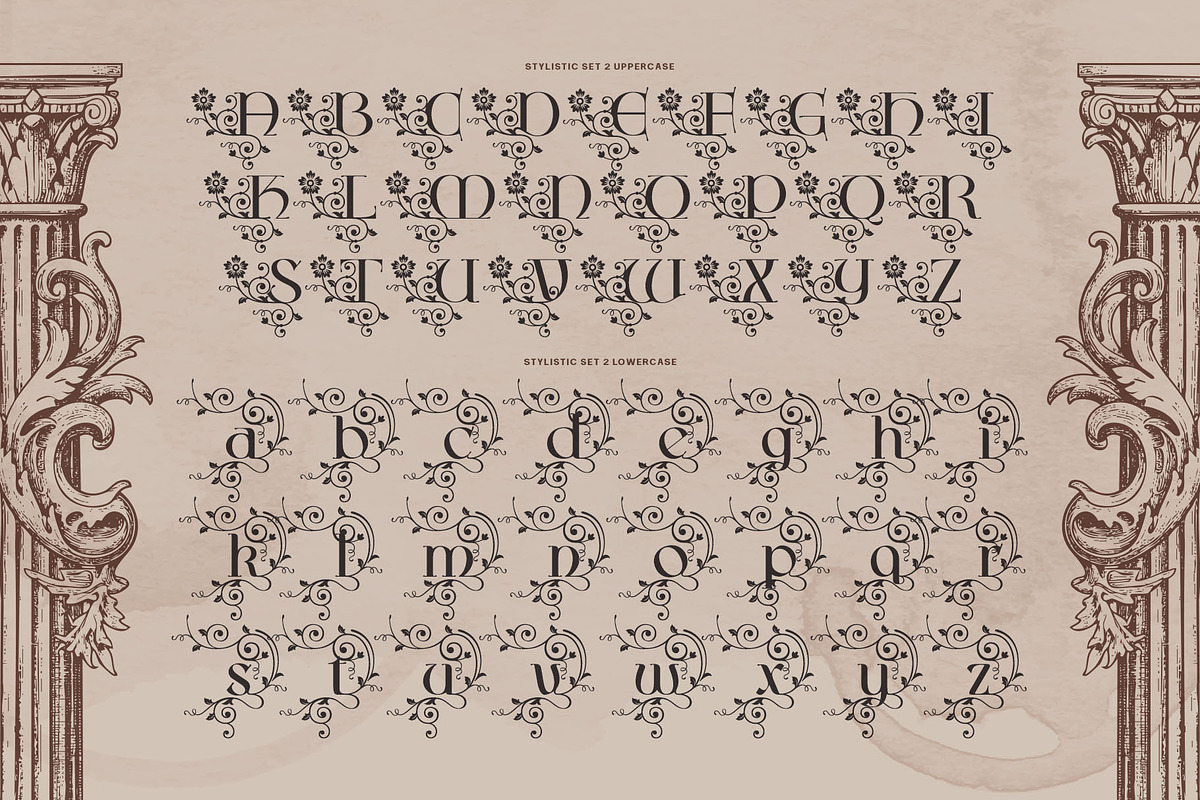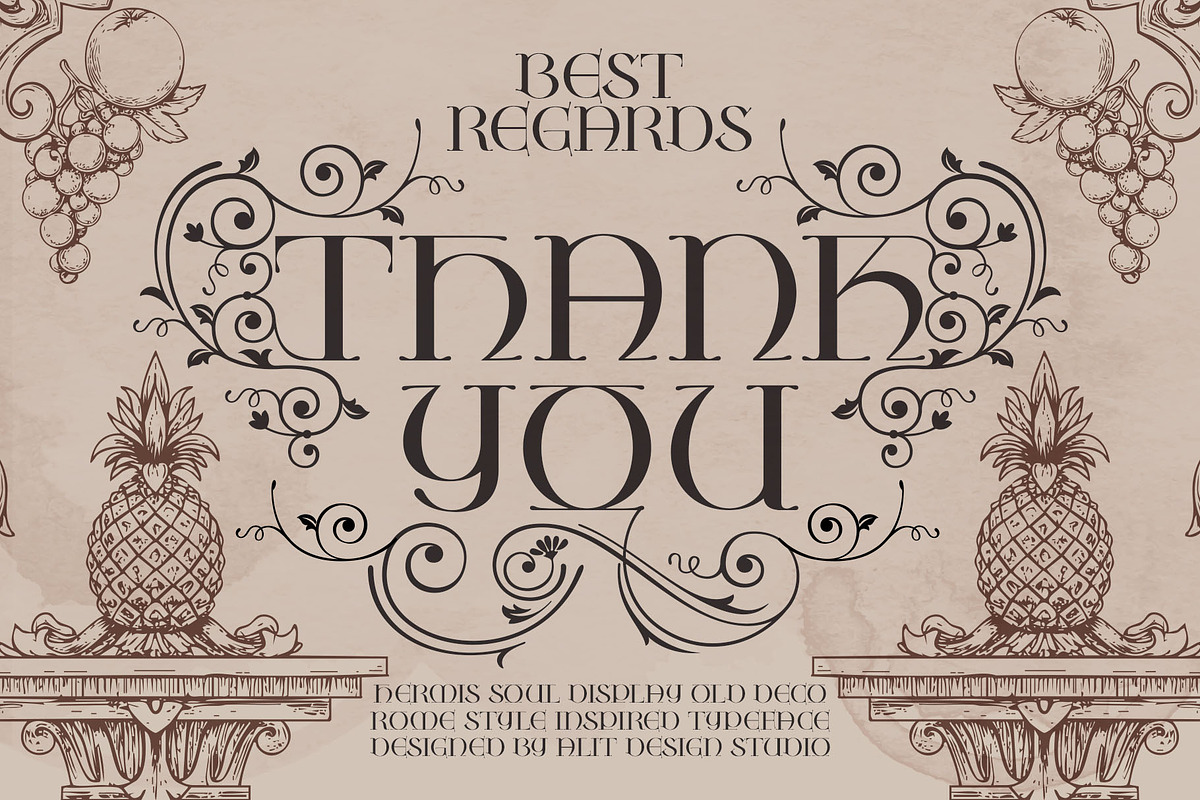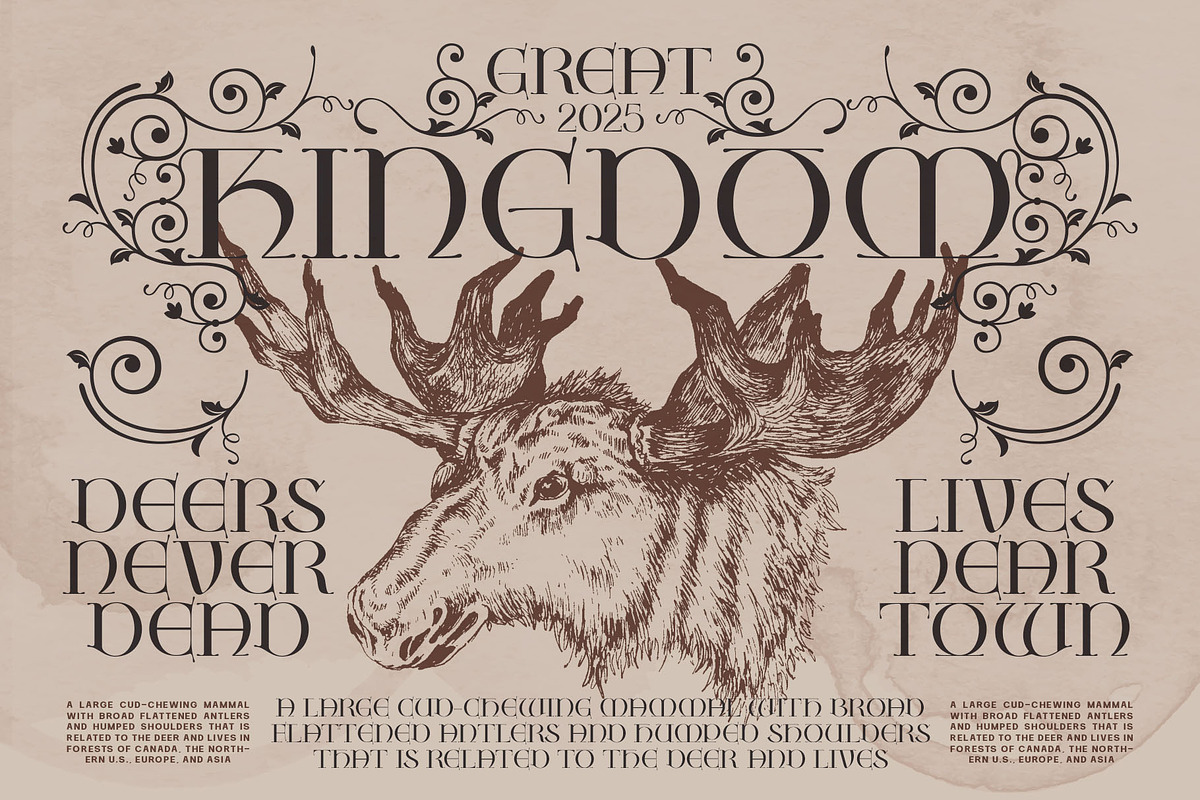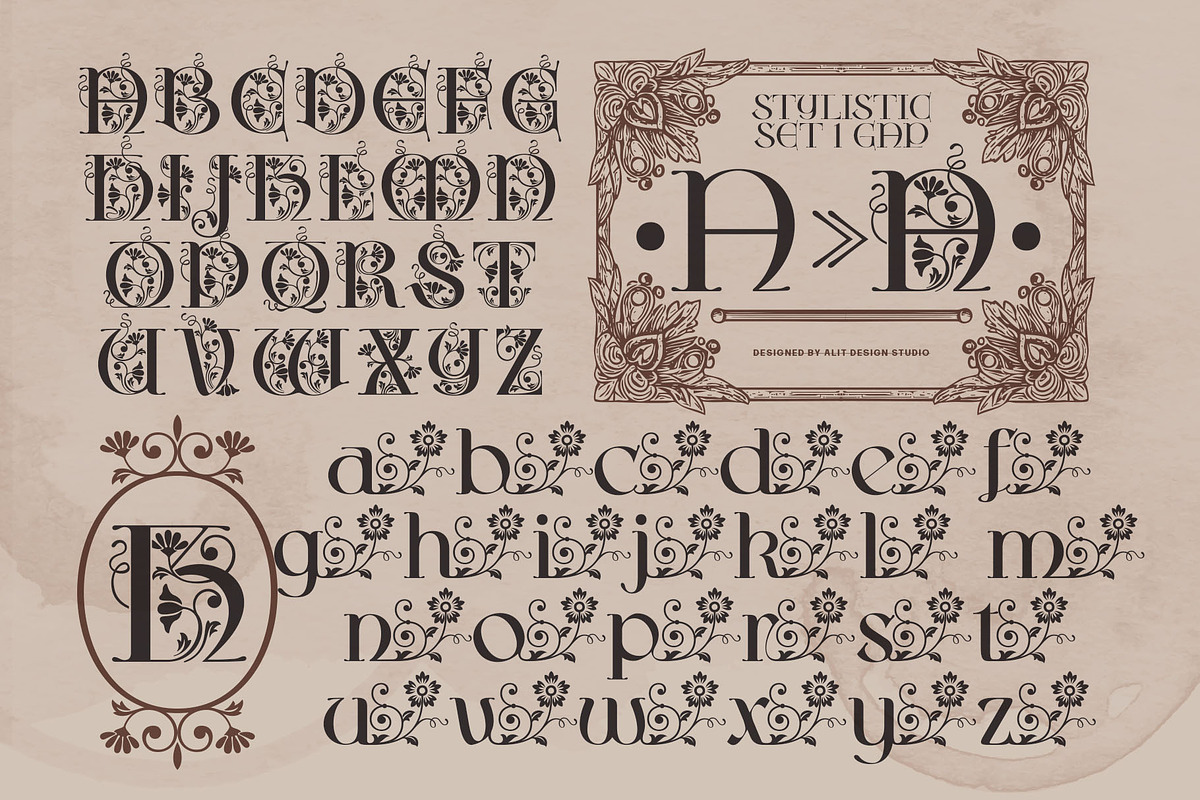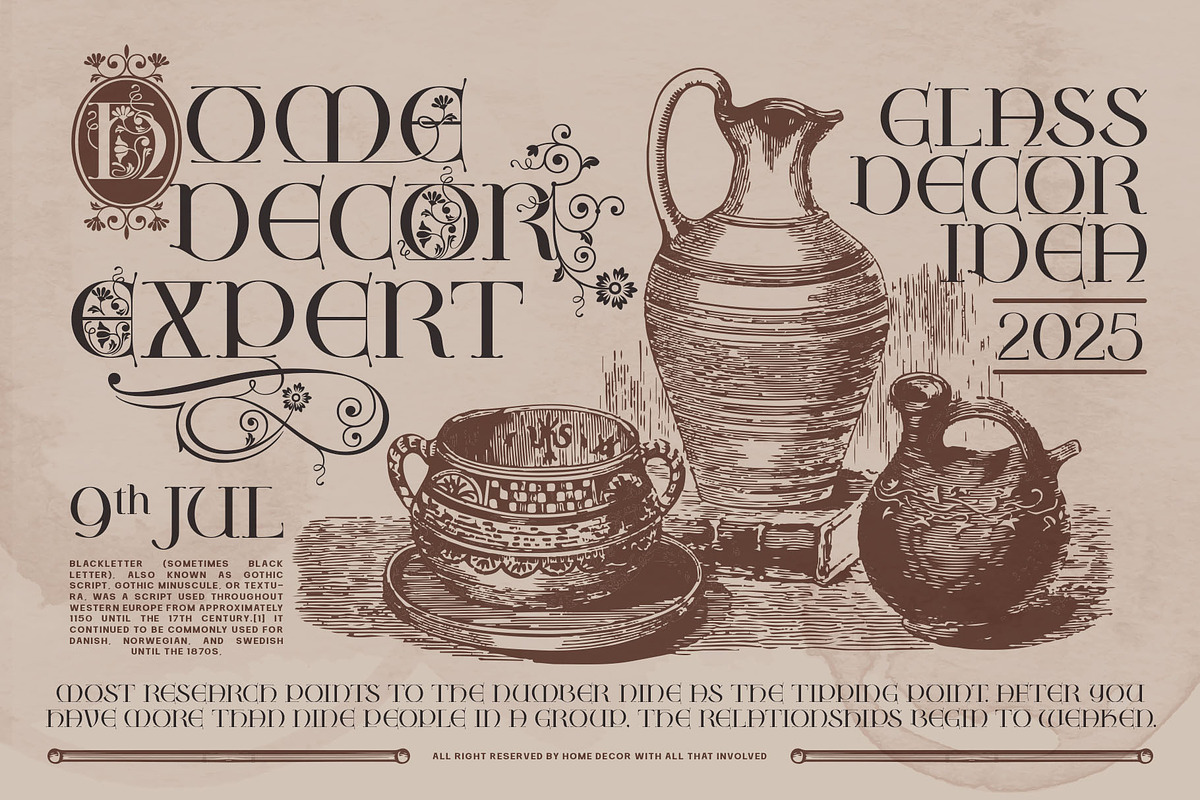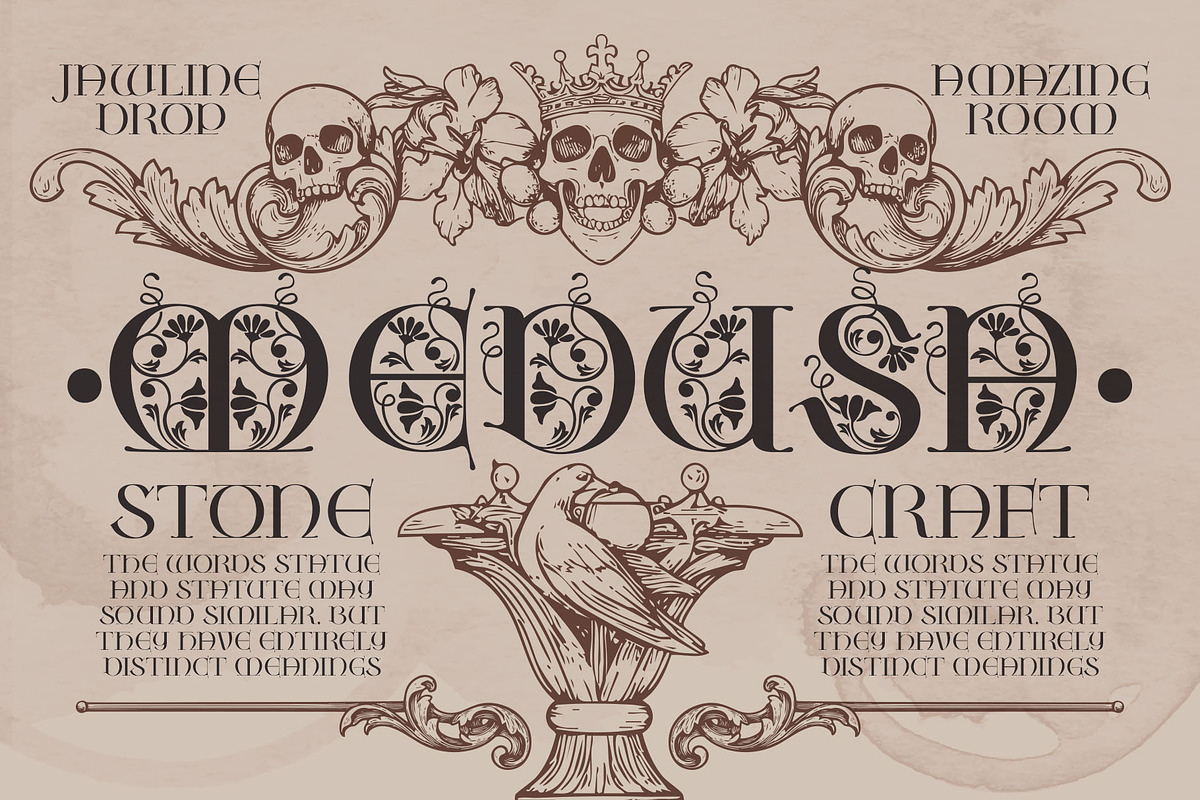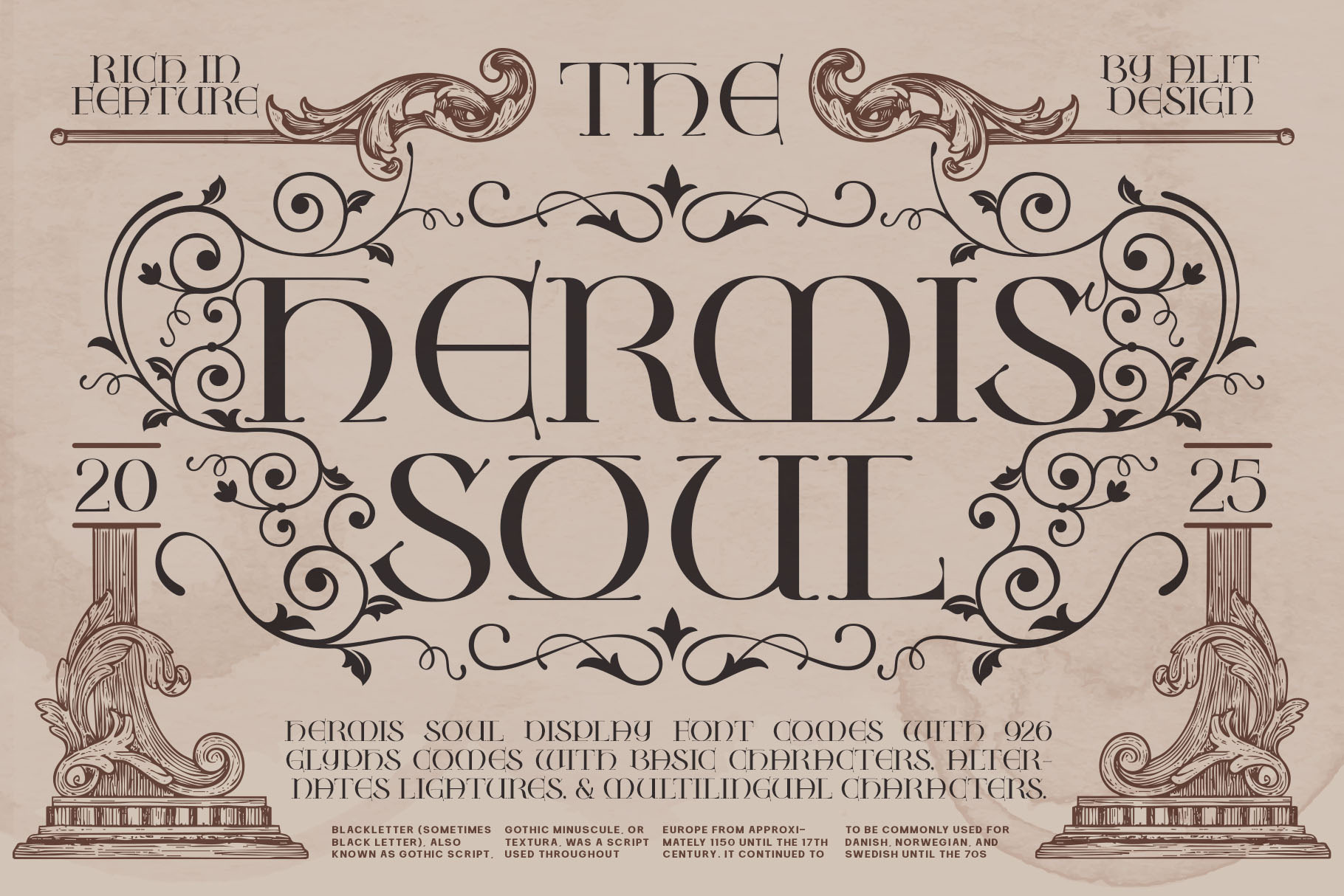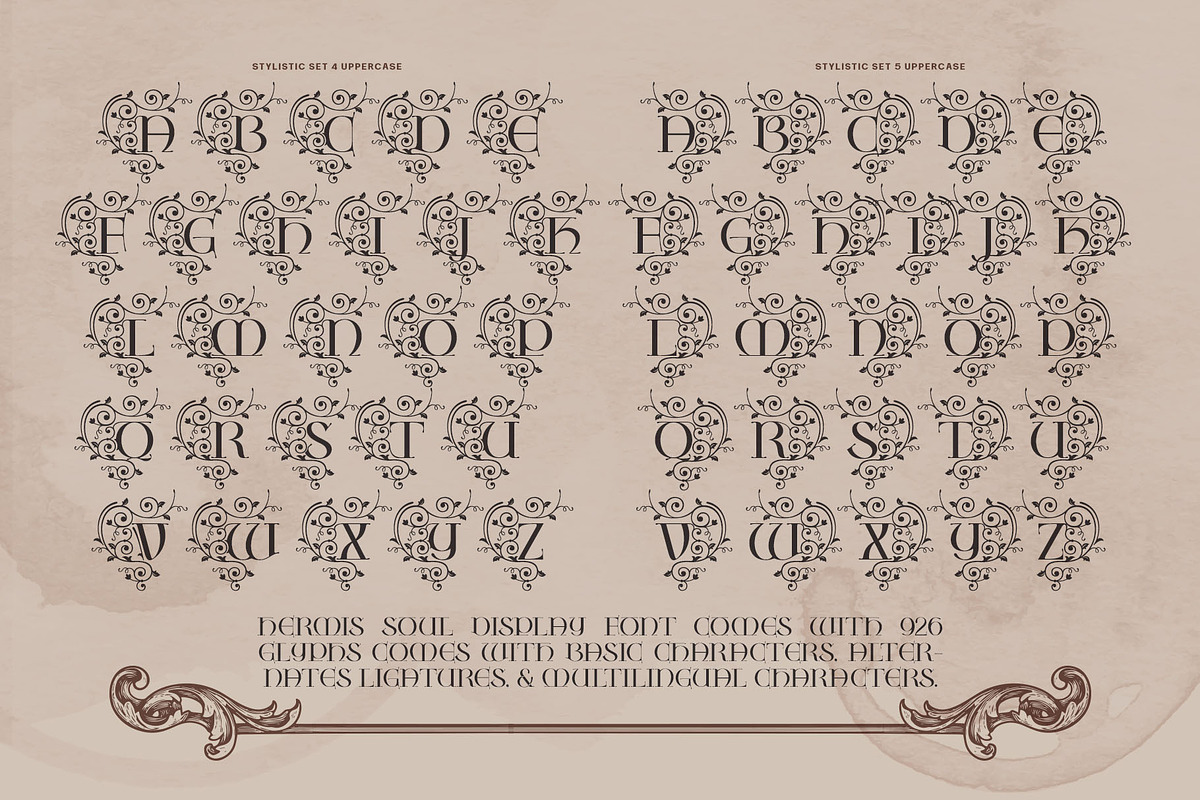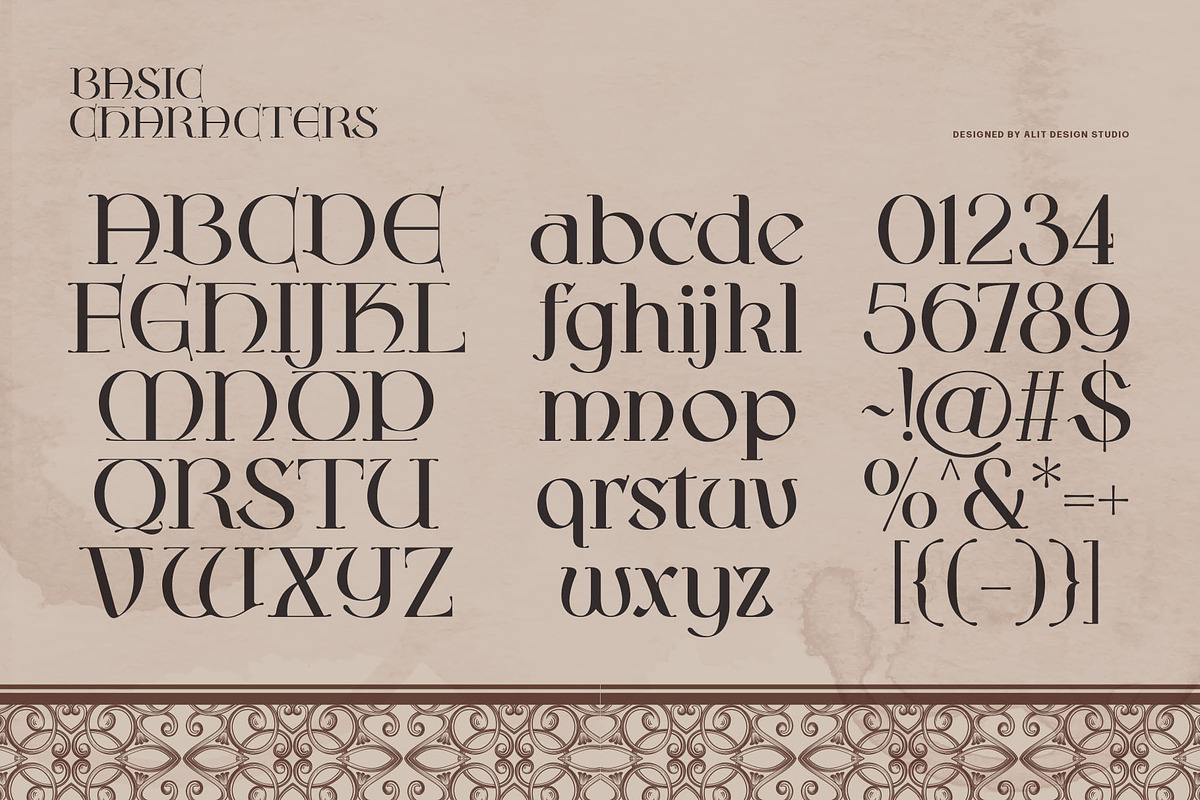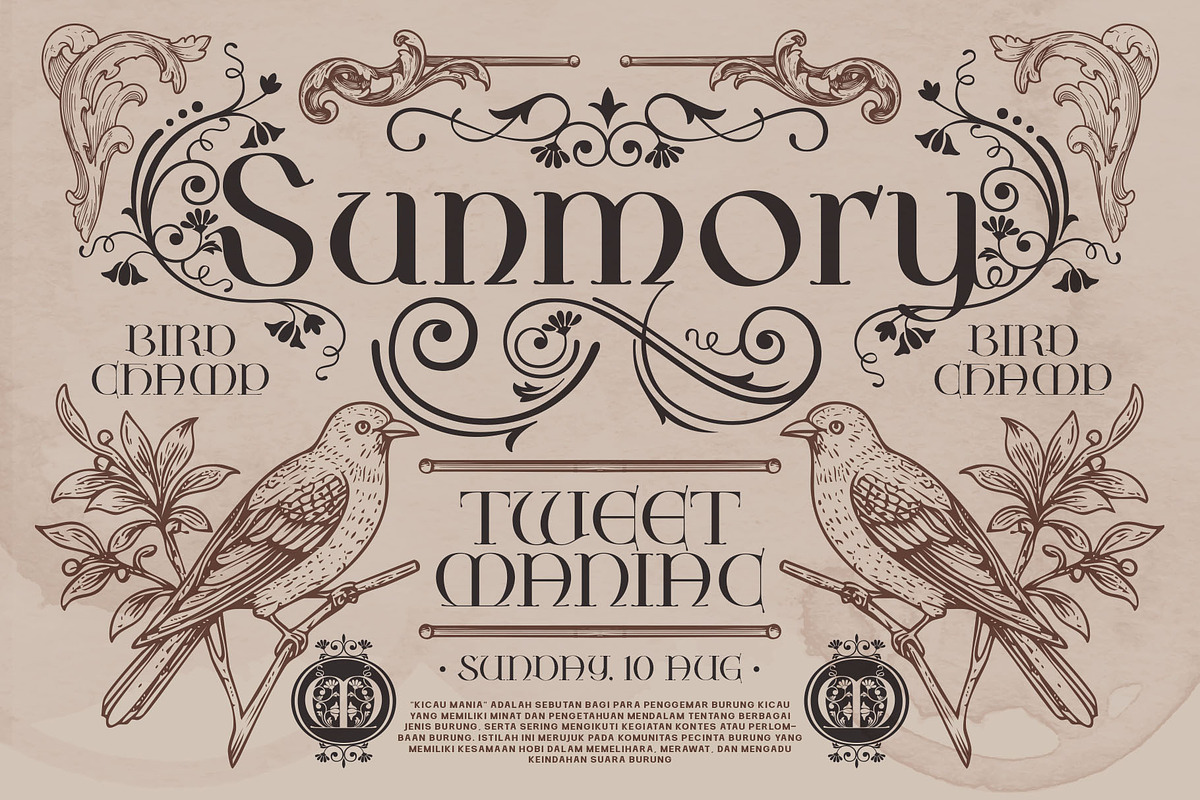
Hermis Soul Typeface
Hermis Soul Typeface - A Journey into Classical Elegance
Step into a world of timeless sophistication with the Hermis Soul Typeface, a masterfully crafted font that breathes life into the majestic soul of ancient Greco-Roman and classic European aesthetics. Painstakingly designed by Alit Design, Hermis Soul is not merely a collection of letters but a gateway to an era of divine artistry and architectural splendor.
Inspired by ornate carvings, classical columns, and mythological grandeur, this display font is perfect for projects that demand a touch of the sublime. Its elegant letterforms are imbued with intricate details, decorative flourishes, and an impeccable sense of balance, making every word a work of art.
Whether you are crafting a luxurious brand identity, designing an invitation for a grand event, or creating a captivating book cover, Hermis Soul provides an expansive toolkit to bring your vision to life. With over 926 glyphs, its versatility is boundless, offering endless creative possibilities.
- Expansive Character Sets: A full suite of uppercase and lowercase characters, numerals, and punctuation forms the foundation of this versatile typeface.
- A Treasure Trove of Alternates: Discover multiple stylistic sets that transform your text. From capitals adorned with intricate floral motifs to letters with elegant, flowing swashes, you can customize your design to perfection.
- Rich & Beautiful Ligatures: A comprehensive set of uppercase and lowercase ligatures ensures that letter pairings flow together seamlessly, adding an extra layer of custom refinement.
- Exquisite Ornaments: Enhance your designs with a bonus set of classical ornaments, perfectly complementing the font's aesthetic and adding a final decorative touch.
- Extensive Multilingual Support: Hermis Soul is ready for a global stage, offering full support for a wide range of languages.
Ideal For:
- Luxury Branding: Wineries, high-end boutiques, artisanal crafts, and bespoke services.
- Elegant Invitations: Weddings, galas, formal events, and exclusive announcements.
- Striking Headlines & Editorial: Book covers, magazine titles, and posters that need to make a bold, sophisticated statement.
- Thematic Design: Projects related to history, mythology, fantasy, and classical art.
Hermis Soul is more than a font; it's a complete design experience. Elevate your projects from ordinary to extraordinary and let the soul of classical elegance define your work.